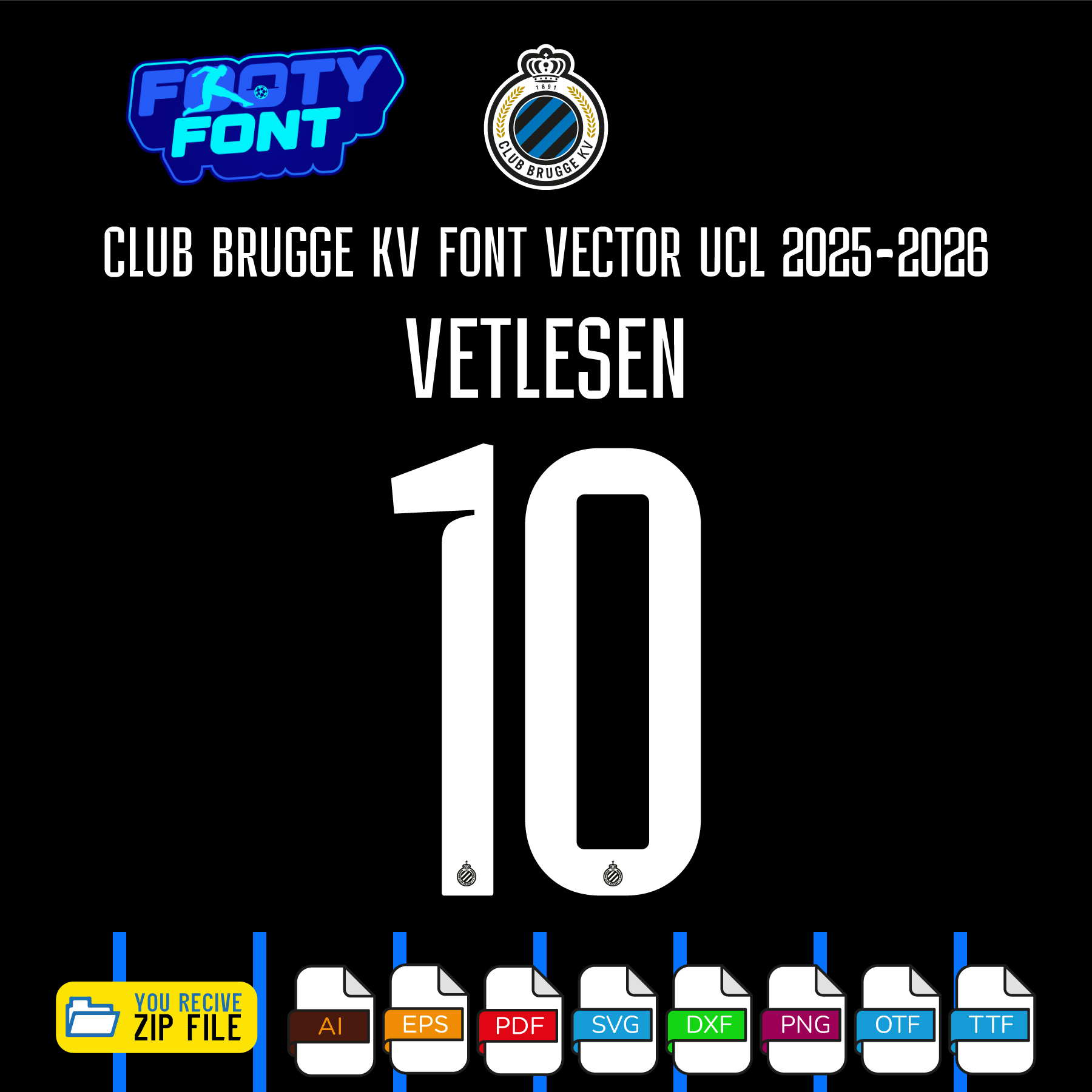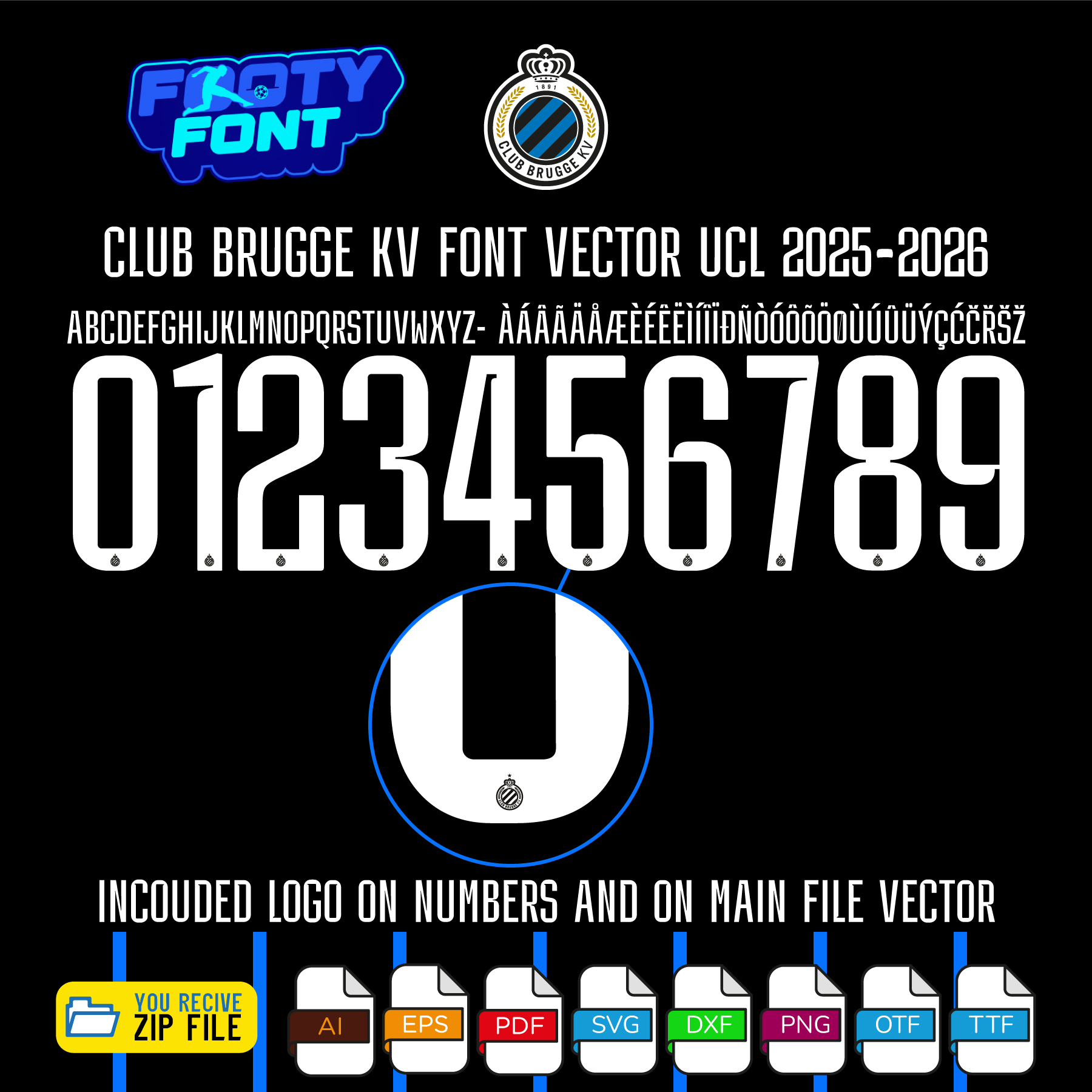
About the Club Brugge 2025-2026 Football Font
Show your “No Sweat, No Glory” spirit with this font, inspired by the Club Brugge 2025-2026 UCL home kit. This is a high-quality typeface designed to replicate the look of the iconic Blauw-Zwart (Blue-Black) jersey worn for European nights at the Jan Breydel Stadium.
This font captures the style worn by the heroes of Bruges like captain Hans Vanaken, Simon Mignolet, and Andreas Skov Olsen. It’s perfect for fans creating their own custom jersey designs for personal use, digital posters that celebrate the club, or any other project that shows your support for Club Brugge.
Use this font to bring the Blauw-Zwart style into your designs—whether for custom jersey graphics, fan merchandise, posters, or social media content.